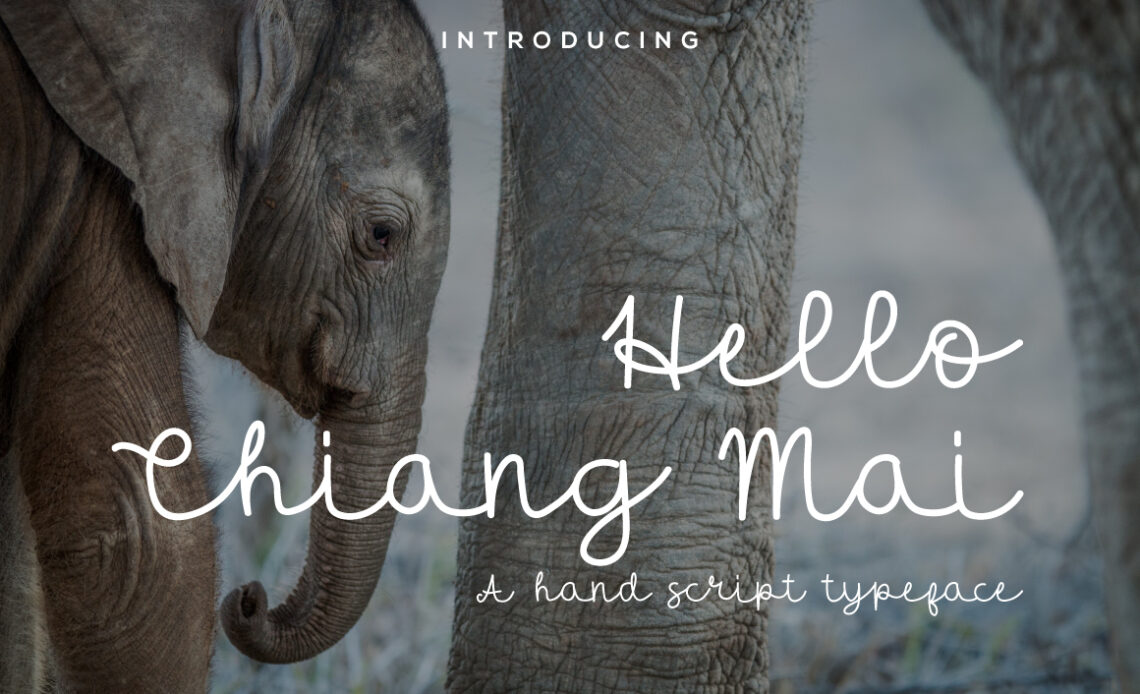
Hello Chiang Mai Font
Step into the ethereal realm of Hello Chiang Mai, an exquisite script font that exudes charm and elegance. Its delicate strokes and rhythmic flow evoke a sense of tranquility, inviting you to express your individuality with grace.
Hailing from the vibrant streets of Chiang Mai, Thailand, Hello Chiang Mai embodies the city's vibrant spirit. Its name evokes nostalgia, reminding us of leisurely strolls through ancient temples and bustling markets.
Crafted with precision, this mono line script boasts meticulously designed kerning pairs. This symphony of characters dances harmoniously, ensuring a seamless and visually captivating experience. Whether you're writing heartfelt messages, creating enchanting invitations, or designing captivating branding, Hello Chiang Mai will elevate your words to new heights.
Indulge in the versatility of Hello Chiang Mai. Its stylish and relaxed nature adapts effortlessly to a myriad of projects, from personal journaling to professional presentations. Its good vibes radiate through every letter, spreading joy and positivity wherever it's used.
Escape the mundane and embrace the extraordinary with Hello Chiang Mai. Its unique charm and undeniable appeal will captivate your audience, leaving a lasting impression. Be happy, stay happy, and let your creativity soar with this enchanting font.